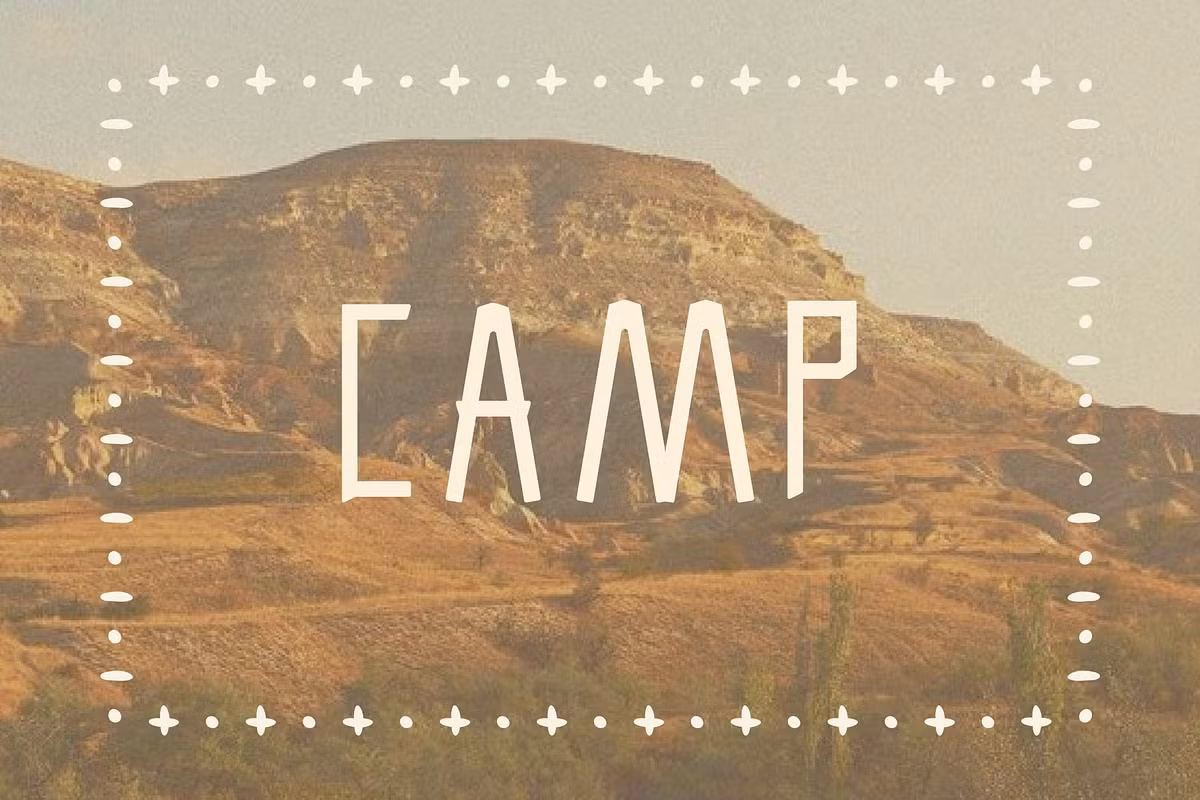
Please note, to use this font for commercial purposes, you must purchase the full version. CAMP FONT, created by By Hand Designs, is a rugged and versatile typeface that embodies a vintage, outdoor-inspired aesthetic. Perfect for logos, branding, t-shirts, posters, and any project that needs a bold, adventurous touch, this font captures the spirit of the great outdoors. Whether you're designing for a camping brand, a rustic event, or an outdoor lifestyle product, CAMP FONT adds a distinctive, earthy feel to your designs. Test it out and enjoy free download access for personal use. Experience the bold, outdoorsy style of CAMP FONT - from By Hand Designs Free Download before purchasing the commercial license. Add a strong, adventurous touch to your designs with CAMP FONT.